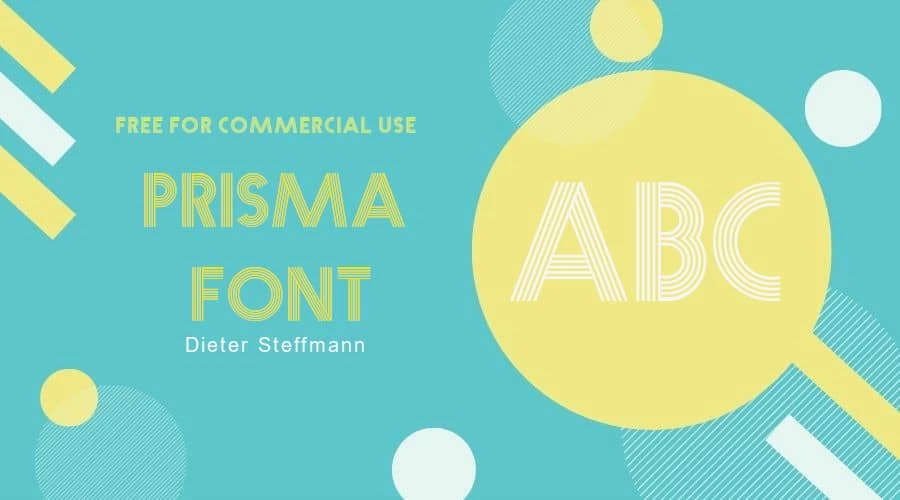
Prisma Font
Prisma font is a fancy multiline display typeface designed by Dieter Steffmann and Rudolf Koch in 1930. Prisma is a 5 line typeface best suited for heading text. There is a pro version of Prisma available on Myfonts designed by Ralph M. Unger. With the basic capitals and figures only, Prisma is very eye-catching and an amazing typeface.
Prisma is very beautiful for design purposes. Graphic designers use the font in projects. On the other hand, publishers use the condensed type for headlines and for similar sections where presentation is the prime issue. Prisma font is a very eye-catching font, whenever you use it in your work it will stand out more than others.
• Designing: For huge designing purposes, Such as Business cards, Headlines, and Brochure layouts, Prisma is at the top of everyone’s favorite list.
• Logos: You can design your logos with it.
• Websites: I have seen various websites use this font.
• Magazines: The font has the outlook to place on top of magazines.